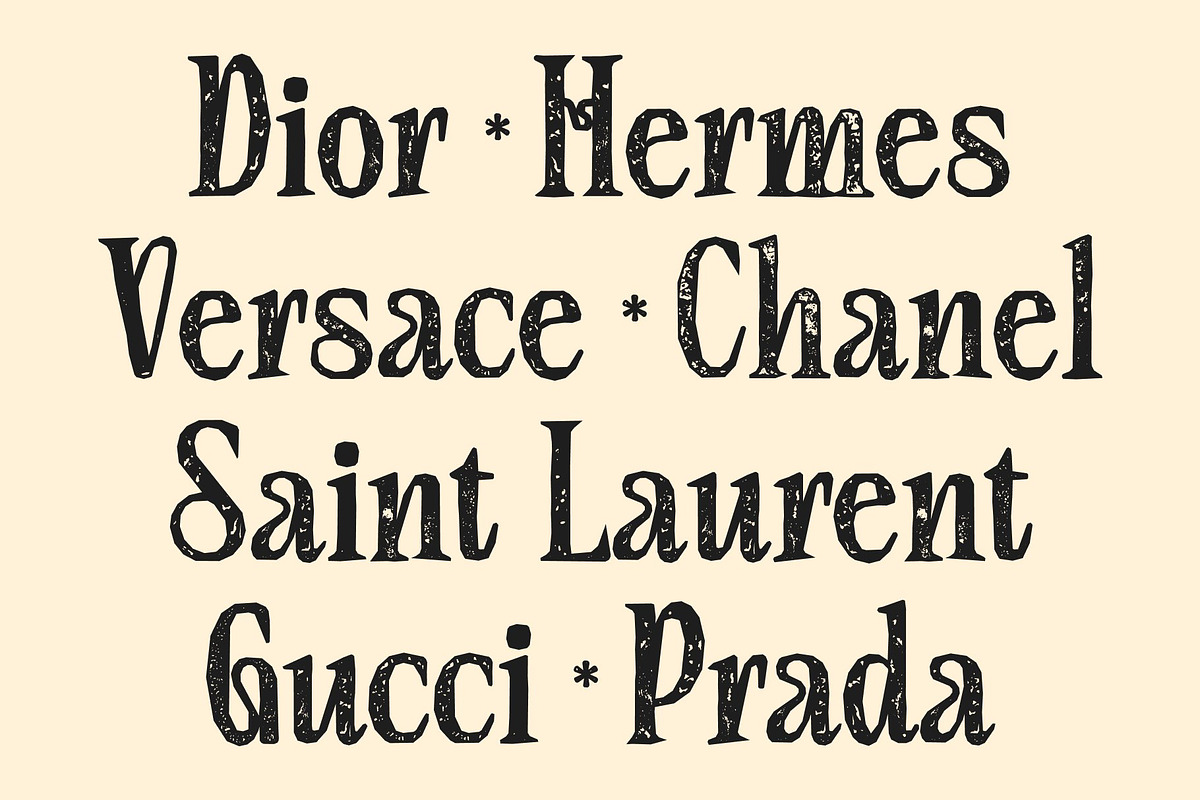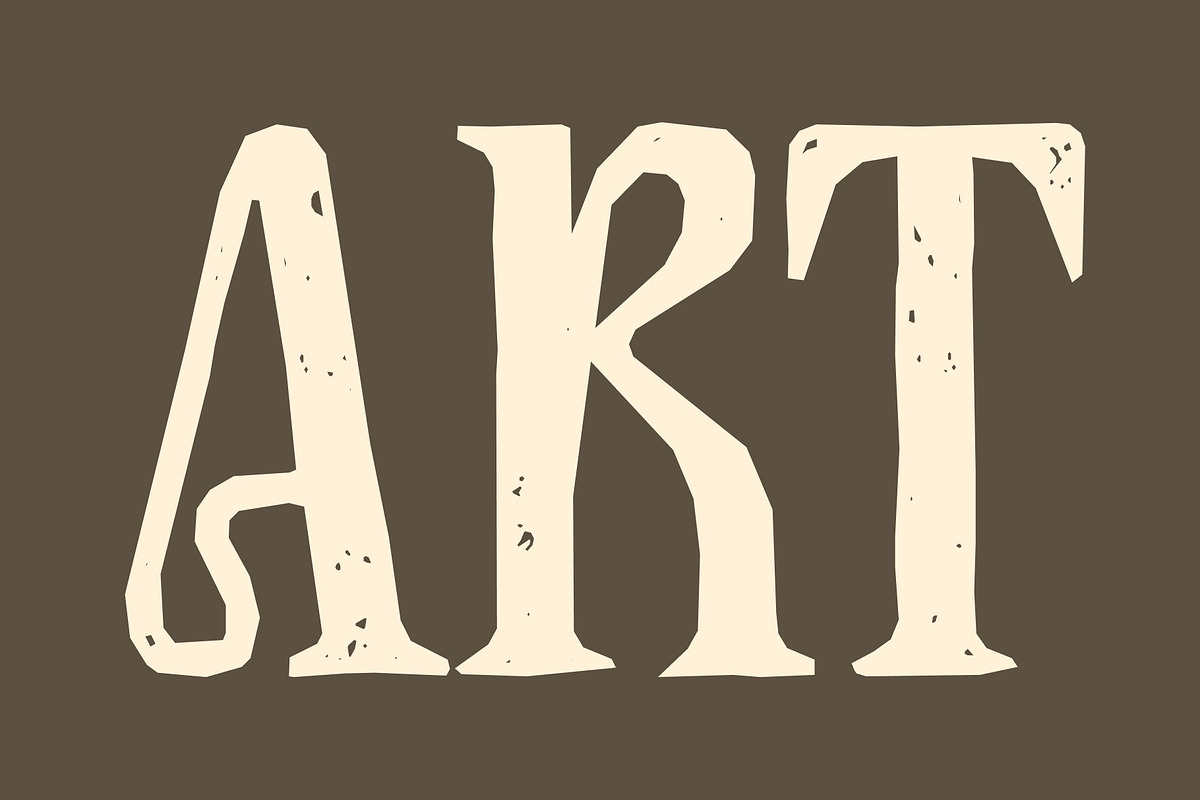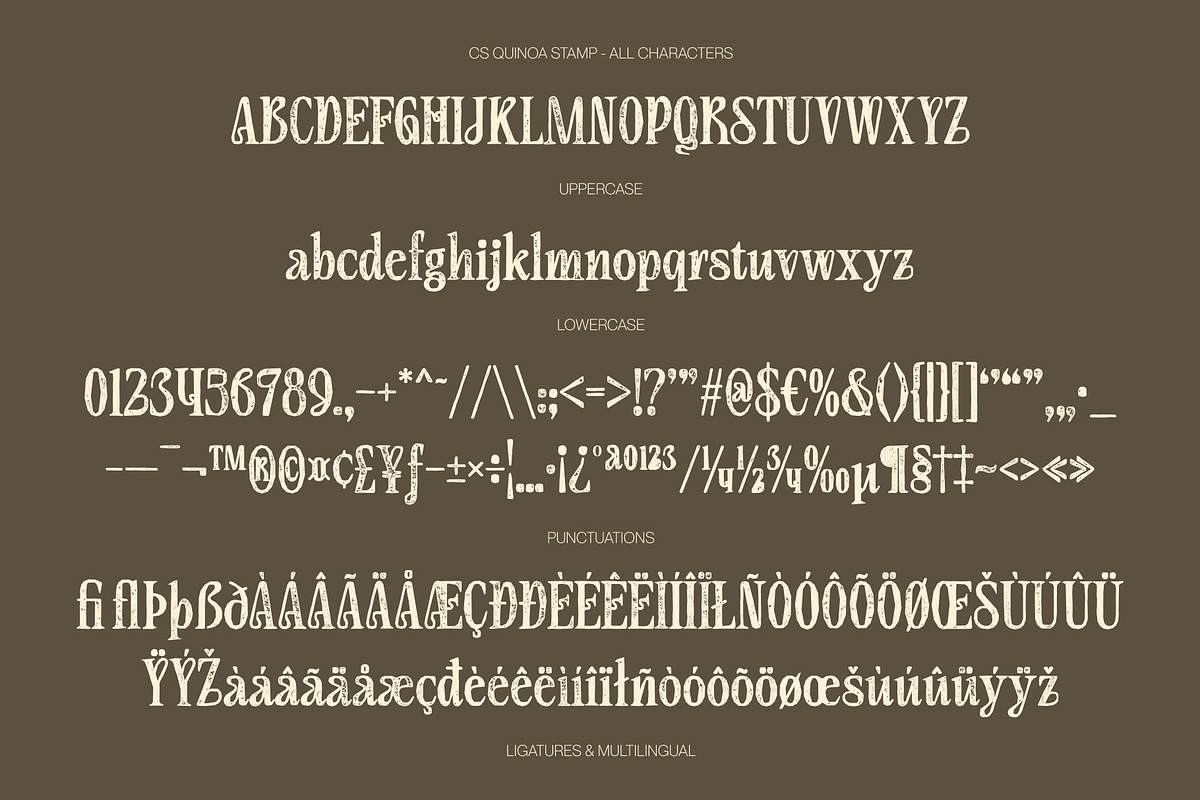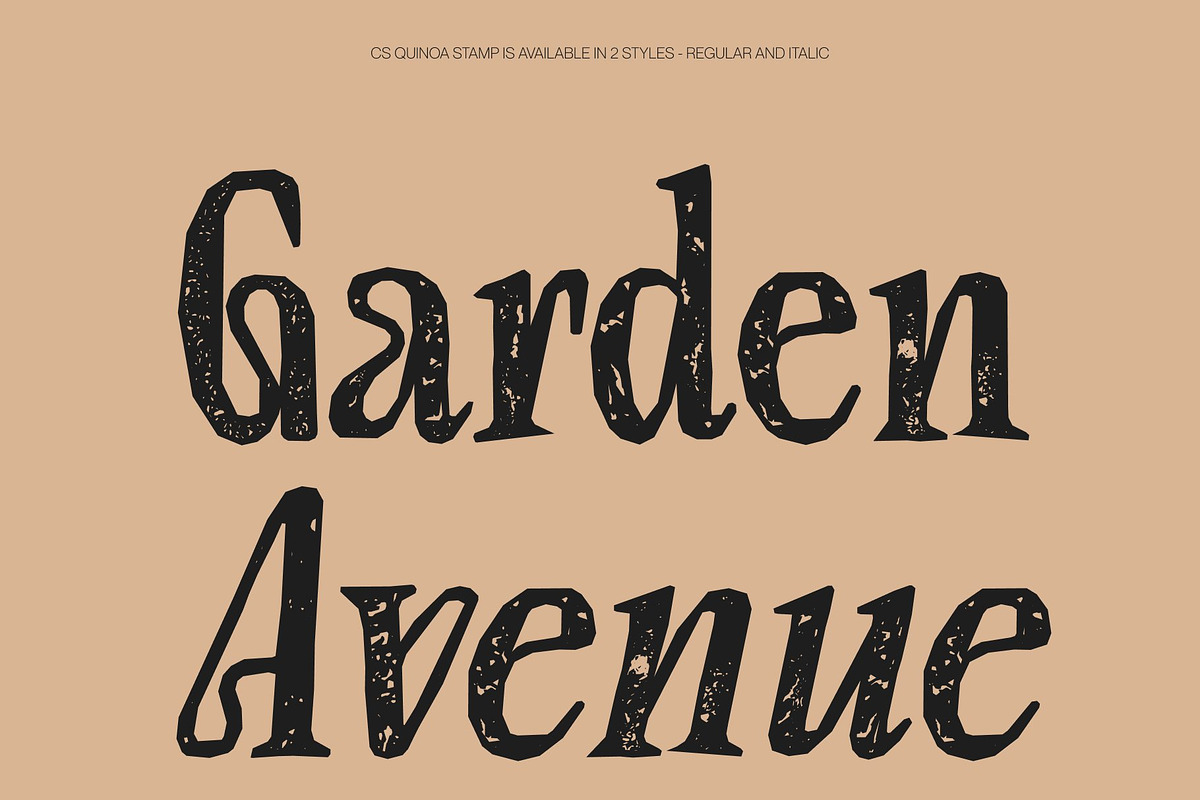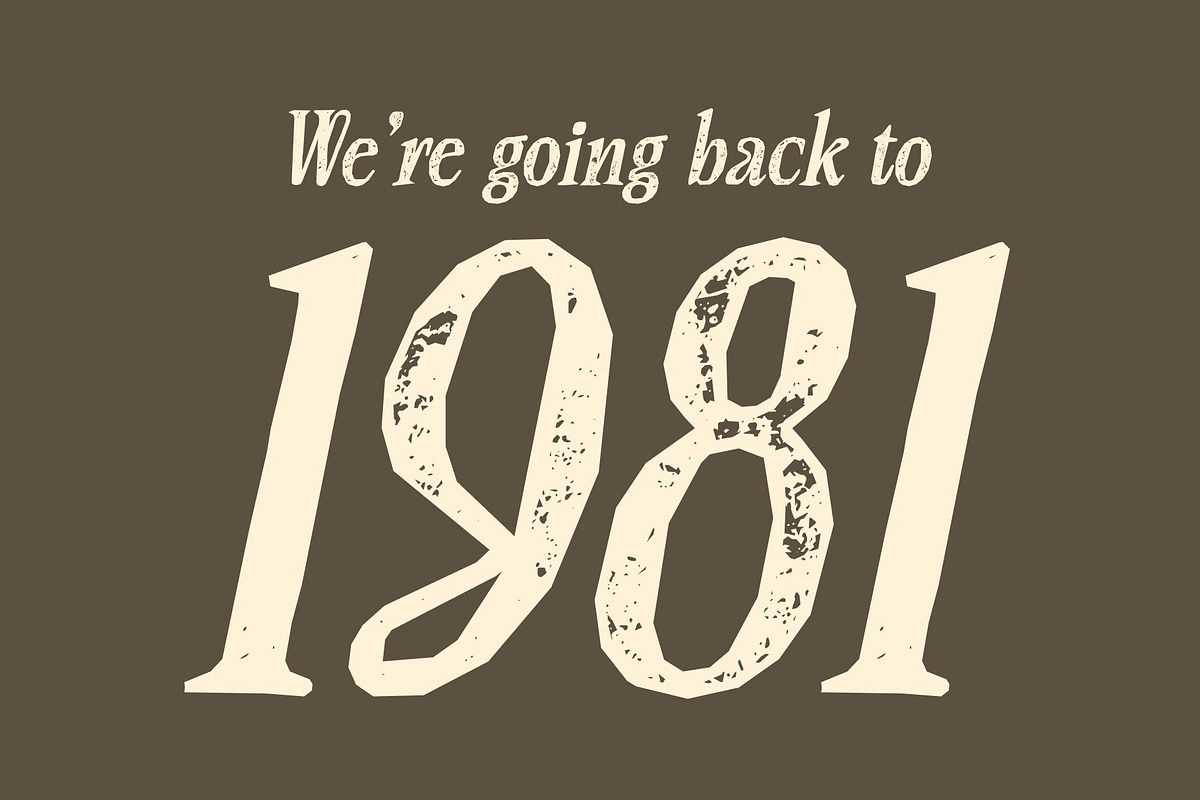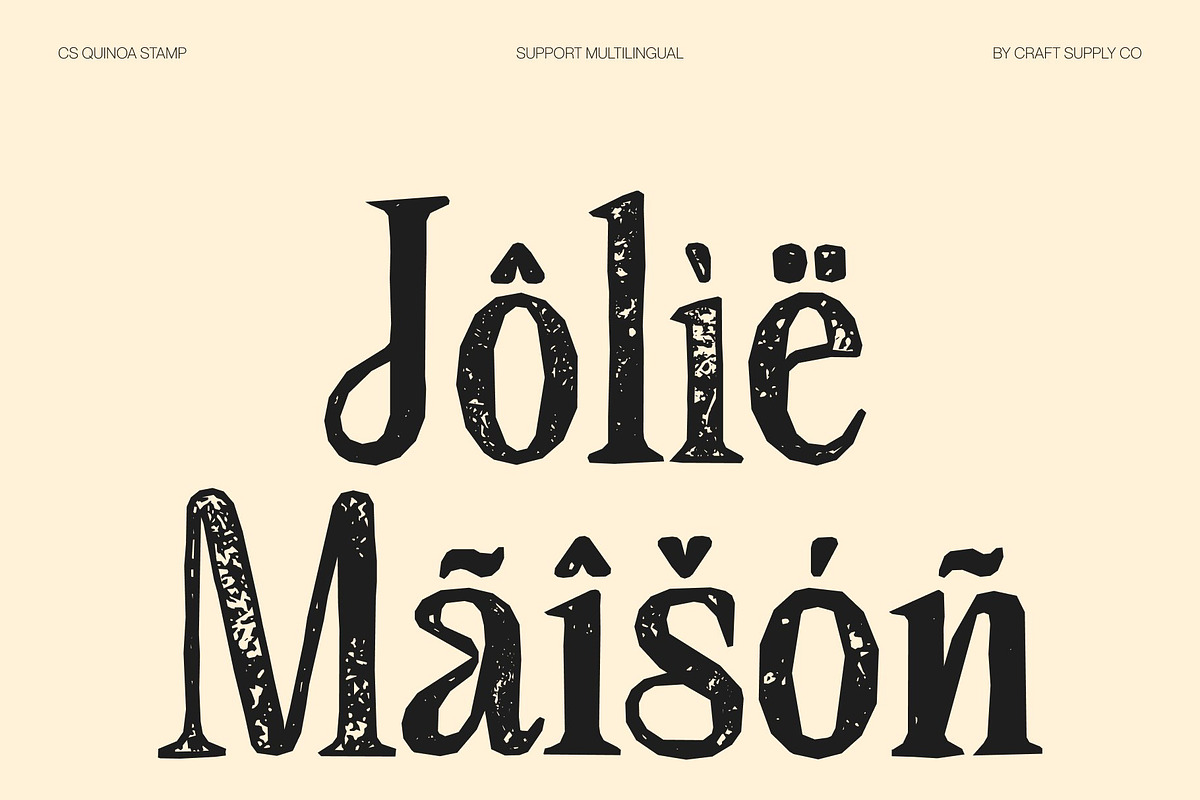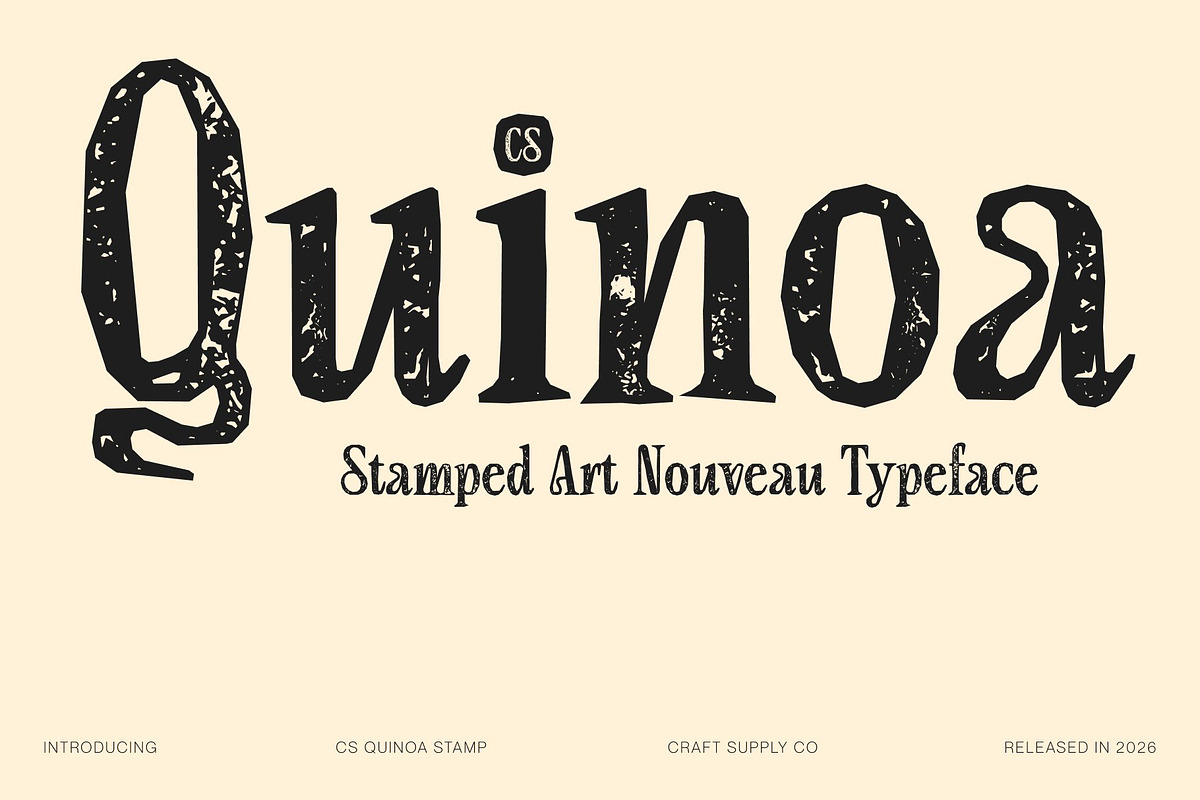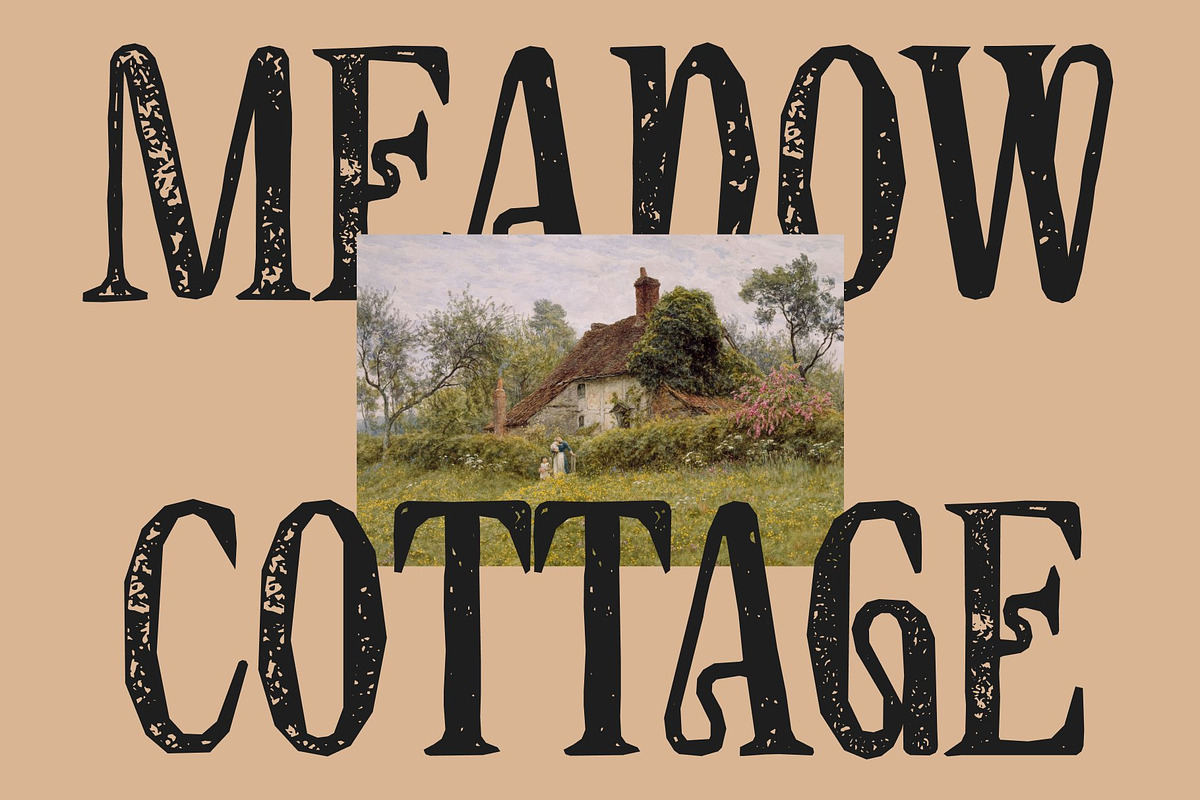
CS Quinoa Stamp
CS Quinoa Stamp – Art Nouveau Serif Font: Where Elegant Beauty Meets Vintage Expression
Graceful Art Nouveau Curves with Refined Elegance This is a modern serif font inspired by the flowing beauty of Art Nouveau design. Its elegant curves, refined proportions, and decorative serif details create a sophisticated visual rhythm filled with charm, artistry, and timeless beauty. Every character feels graceful and expressive, making the font perfect for designs that seek a luxurious and artistic atmosphere.
Contemporary Sophistication with Decorative Flair Blending modern serif structure with the organic elegance of Art Nouveau aesthetics, this font delivers a typographic style that feels stylish, feminine, and visually captivating. The balanced forms preserve readability while maintaining a decorative and high-end personality suitable for premium creative projects.
Stamped Texture with Vintage Artistic Character This font introduces a handcrafted texture inspired by traditional print techniques. The slightly rough and organic finish adds vintage character, artistic depth, and authentic old-design charm to every letter. This textured detail enriches the elegant serif forms with warmth and expressive individuality.
Perfect for Editorials, Branding, and Fashion Campaigns This font perfect for editorial cover art, creative branding, event stationery, fashion campaigns, luxury packaging, and sophisticated visual identities. Its Art Nouveau-inspired forms and textured detailing make it ideal for logos, invitations, magazine layouts, posters, and artistic promotional materials.
CS Quinoa Stamp Regular
CS Quinoa Stamp Italic